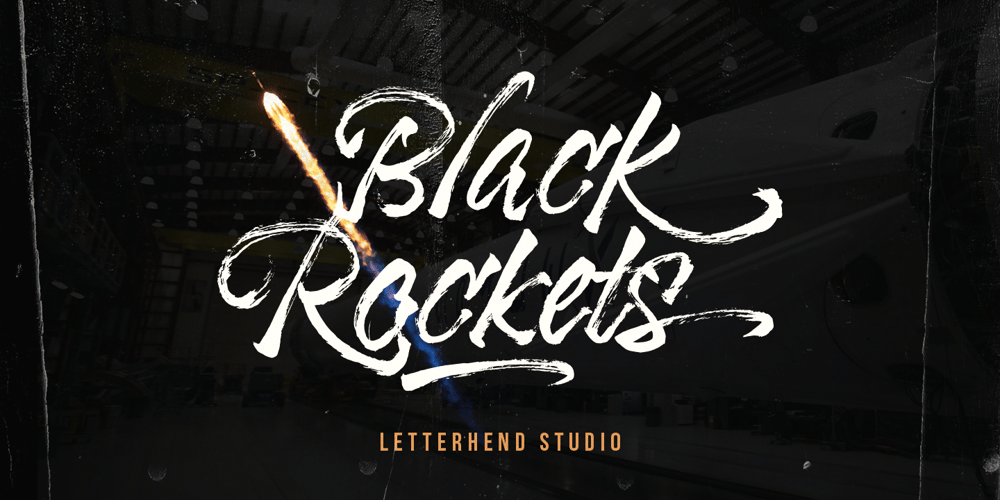
Black Rockets Font Family was designed by Hendry Juanda and published by Letterhend. Black Rockets contains 1 styles and family package options. Introducing, Black Rocket- a hand drawn dry brush script which is purposely made for headline, display or logotype, and signature. This type of font perfectly made to be applied especially in logo, and the other various formal forms such as invitations, labels, logos, magazines, books, greeting / wedding cards, packaging, fashion, make up, stationery, novels, labels or any type of advertising purpose.Features :- uppercase & lowercase- numbers and punctuation- multilingual- alternates & ligatures- PUA encodedWe highly recommend using a program that supports OpenType features and Glyphs panels like many of Adobe apps and Corel Draw, so you can see and access all Glyph variations.